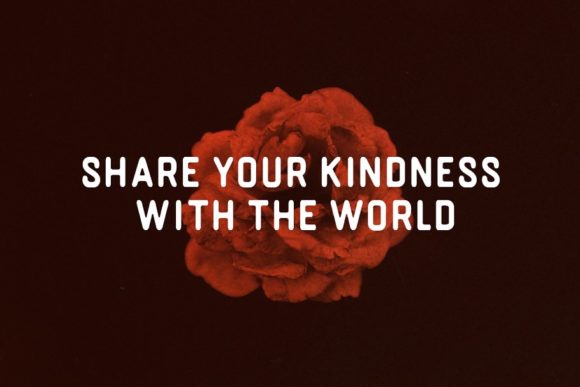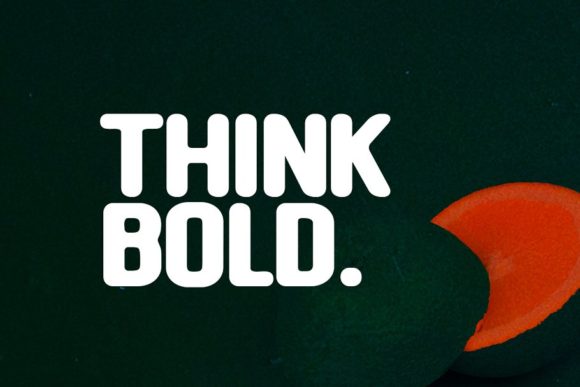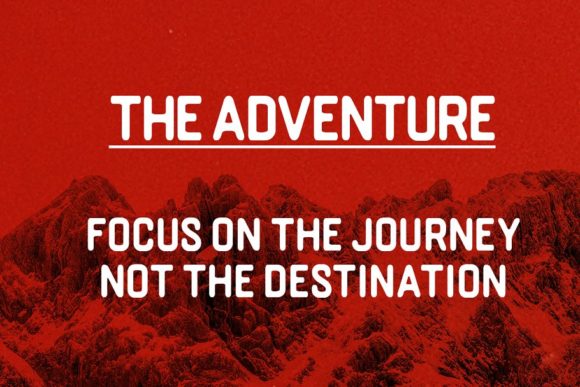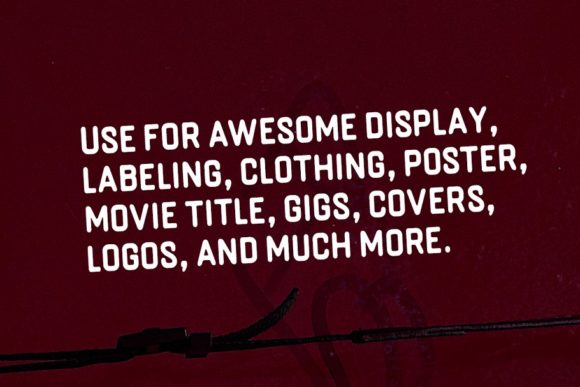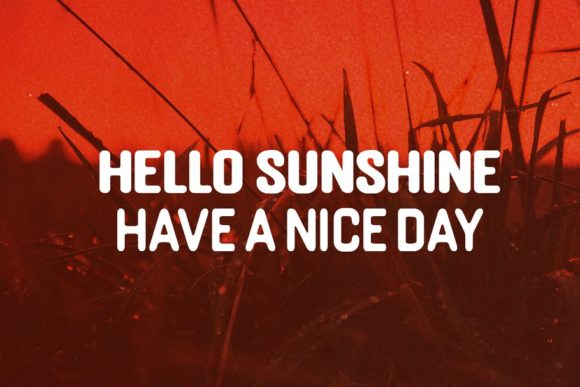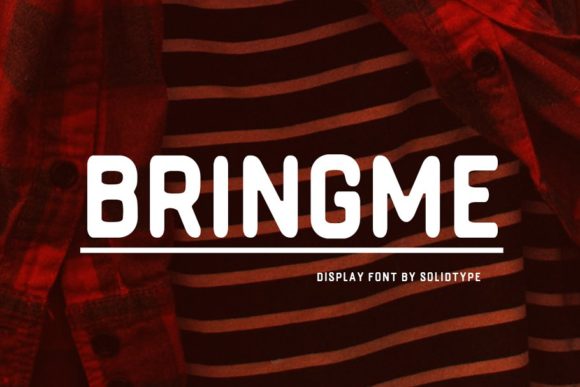
Bringme Font: A Clean and Strong Display Font for Your Creative Projects
Bringme is a clean and strong display font that features an incredibly eligible style, making it perfect for designers and crafters looking to add a touch of sophistication to their projects. In this article, we’ll dive into the world of Bringme Font, exploring its unique characteristics, uses, and benefits.
What is Bringme Font?
Bringme Font is a modern display font designed to make a statement. Its clean and strong lines, combined with its elegant style, make it an excellent choice for a wide range of creative projects, from branding and advertising to packaging and digital design.
Key Features of Bringme Font
• Clean and Strong Lines: Bringme Font features clean and strong lines that give it a bold and confident look.
• Incredibly Eligible Style: The font’s eligible style makes it perfect for use in titles, headings, and other display text.
• Modern and Sophisticated: Bringme Font has a modern and sophisticated feel, making it ideal for designers and crafters who want to add a touch of elegance to their projects.
• Highly Versatile: The font is highly versatile and can be used in a wide range of creative projects, from digital design to print materials.
Uses of Bringme Font
Bringme Font is perfect for a variety of creative projects, including:
• Branding and Advertising: Use Bringme Font to create bold and eye-catching logos, slogans, and ad copy.
• Packaging Design: Add a touch of sophistication to your packaging design with Bringme Font.
• Digital Design: Use Bringme Font in digital design projects, such as website headers, social media graphics, and email marketing campaigns.
• Print Materials: Bringme Font is perfect for use in print materials, such as brochures, flyers, and posters.
Benefits of Using Bringme Font
There are many benefits to using Bringme Font in your creative projects, including:
• Instant Recognition: Bringme Font’s clean and strong lines make it instantly recognizable and memorable.
• Professional Look and Feel: The font’s modern and sophisticated style gives your projects a professional look and feel.
• Easy to Read: Bringme Font is highly legible, making it easy to read and understand.
Tips for Using Bringme Font
Here are some tips for using Bringme Font in your creative projects:
• Use it as a Header Font: Bringme Font is perfect for use as a header font, adding a touch of sophistication to your titles and headings.
Font Name Bringme Font
Author Solidtype
Bringme Font is a clean and strong display font that features an incredibly eligible style, making it perfect for designers and crafters looking to add a touch of sophistication to their projects. With its modern and sophisticated feel, high versatility, and ease of use, Bringme Font is an excellent choice for a wide range of creative projects.